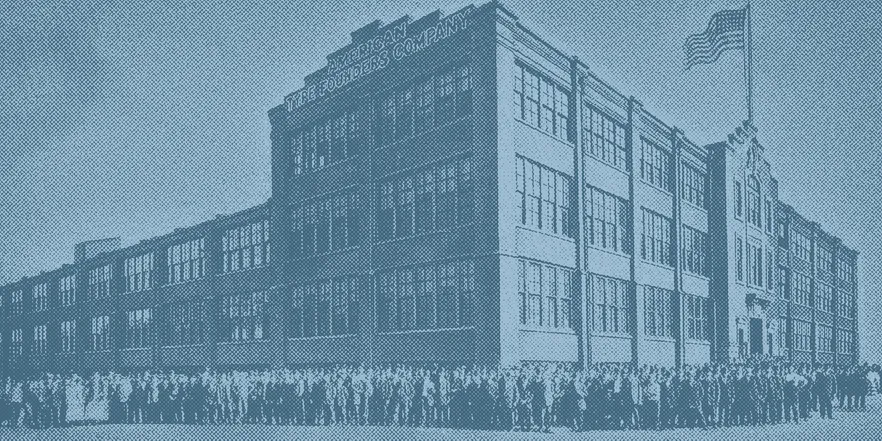
American Type Founders Company: A legacy of typographic innovation, quality, and creativity
American Type Founders was formed in 1892 as a consolidation of 23 of the most prominent independent type foundries in the United States. Together, these foundries had dominated American typesetting, but they were beginning to feel threatened by the recent invention of two practical systems for automated mechanical typesetting: the Linotype and the Monotype. ATF was created as a unified response to that looming threat.
Although machine typesetting took off quickly, especially in the newspaper business, hand-setting continued for many decades to be the standard method of composing type. It was also common to mix hand-set headlines or display type with machine-set body copy. The inspiration for ATF’s founding may have been defensive, but the company marketed itself as both the cutting edge of new technology and the keeper of traditional quality.
By 1923, when ATF issued its most ambitious type specimen book, the company was touting its preeminence in virtually every aspect of printing and type founding. A slightly pompous introductory text in the weighty specimen makes a strong statement about ATF’s leadership in the creation of the first type families. This gave printers a systematic way of choosing types that would work well together and have more impact in advertising than an assortment of unrelated types. The use of type families was promoted as a source of not only beauty but also efficiency in the design and production of printed matter.
The back story behind ATF’s invention of the type family was in the nature of its large and varied stock of existing typefaces. Since ATF came together as an amalgamation of nearly two dozen American type foundries — each one of which had its own history and typefaces — it naturally found itself with many competing yet similar designs, none of which necessarily matched or fit well with their siblings. Weeding out redundant and repetitive designs from multiple source foundries created an opportunity to consolidate types into coherent families, redesigning them if necessary, to present a harmonious family resemblance.
The next logical step was to design new typefaces conceived from the start as members of a single family. This was largely done by the prolific Morris Fuller Benton. The success of ATF owed a great deal to Morris Benton and his father, Linn Boyd Benton. The elder Benton had invented several of the technologies that made production of many sizes and styles of type easier, notably the pantograph, which could engrave steel punches at various sizes based on an original template (with appropriate adjustments made for each size and style). His son later explained: “Optical scaling was easily accomplished at ATF by adjusting certain settings on Linn Boyd Benton’s matrix engraving machine.”
Linn Boyd Benton’s technological advancements resulted in variations that made each size of type optimally readable. But it was Morris Fuller Benton who set his imprint on ATF, through creating or overseeing the designs of the most popular ATF typefaces for nearly forty years. He can be credited with the creation of Century Schoolbook, one of the most common workhorse typefaces making its way into digital form; the production of the Cheltenham family; influential revivals of classic types by Bodoni and Jenson; and the ubiquitous sans serifs of everyday job printing: Franklin Gothic, News Gothic, and Alternate Gothic.